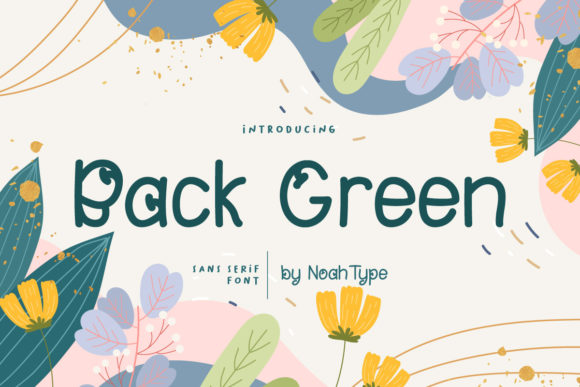
**Introducing Back Green: The Font That Will Make Your Designs Pop!**
Are you tired of using the same boring fonts that everyone else is using? Do you want your designs to stand out from the crowd? If so, then you need to check out Back Green, the fun and playful handwritten font that is perfect for adding a touch of personality to your work.
**Here are just a few of the things that make Back Green so special:**
* It's incredibly versatile and can be used for a wide variety of projects, from invitations and greeting cards to social media posts and website design.
* It has a unique and eye-catching style that is sure to make your work stand out.
* It's easy to read and understand, making it perfect for body text and headlines.